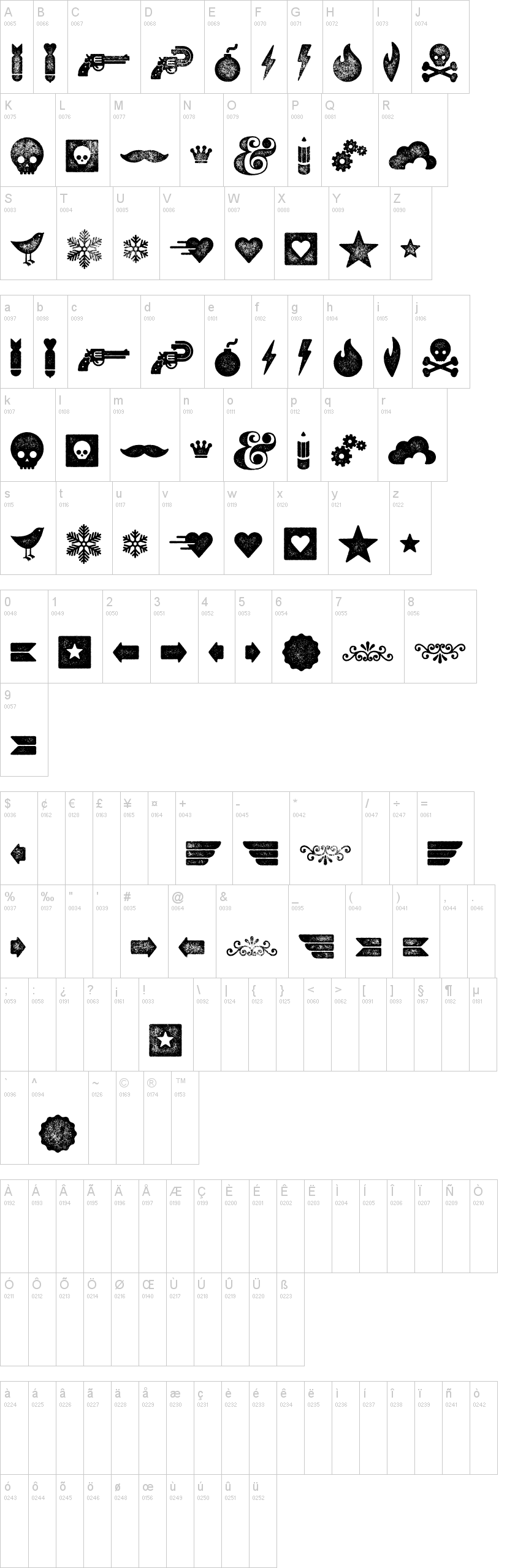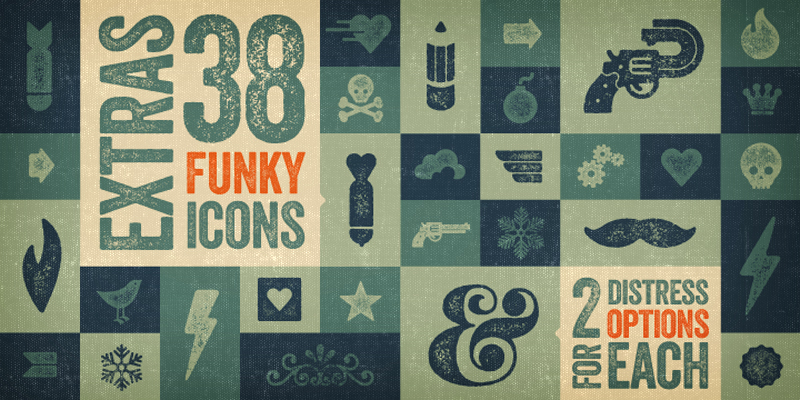
Note of the authorVeneer Extras from Yellow Design Studio is a funky set of high resolution hand-crafted letterpress dingbats. Because they're remarkably detailed, they looks great even at large sizes.